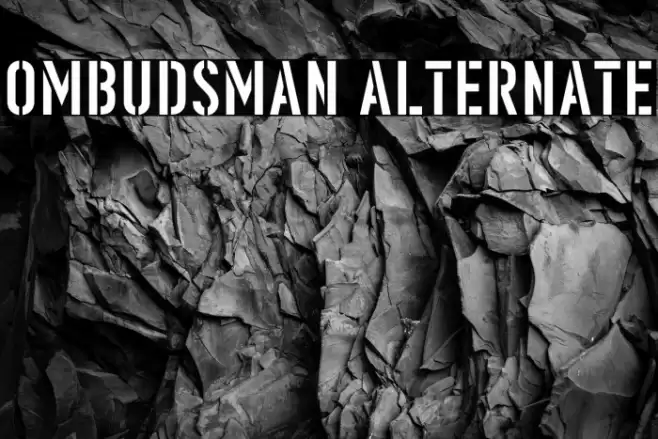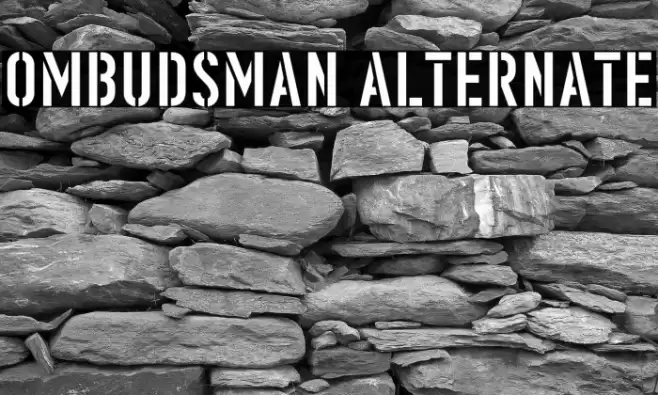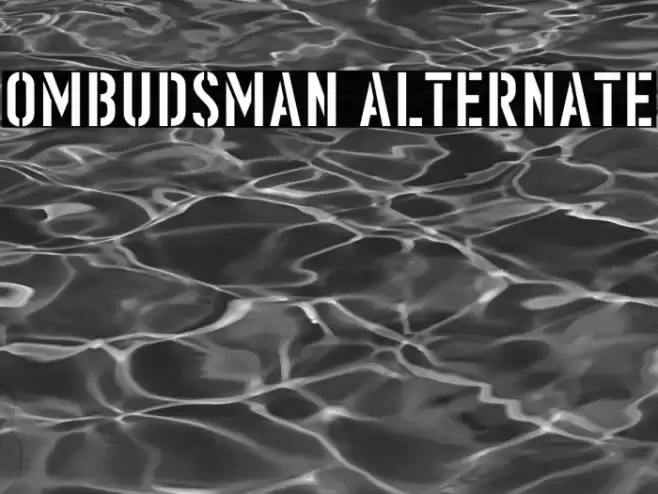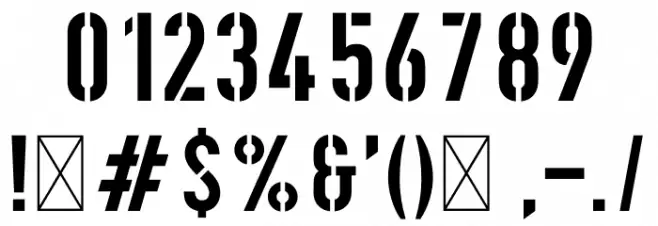
Ombudsman Alternate Font
Ombudsman Alternate Description
This font features a bold and impactful design with a strong geometric structure. The characters are constructed with a stencil-like appearance, characterized by breaks in the strokes that create a distinctive and modern look. The uppercase letters are uniform in height, providing a sense of stability and strength. The numerals and special characters maintain the same boldness, ensuring consistency across all glyphs. This font's unique style makes it suitable for attention-grabbing designs, offering a contemporary twist on traditional stencil fonts.
A bold, geometric stencil font with a modern and impactful design from Regular fonts.
- Proposed Projects: Ideal for branding, posters, headlines, and any design requiring a strong visual impact.